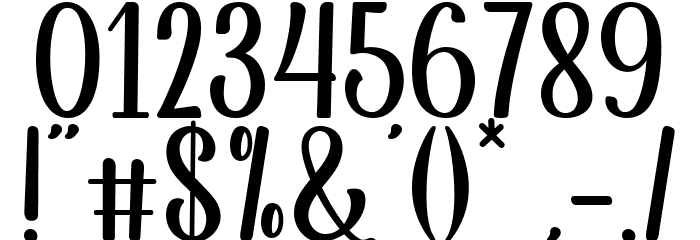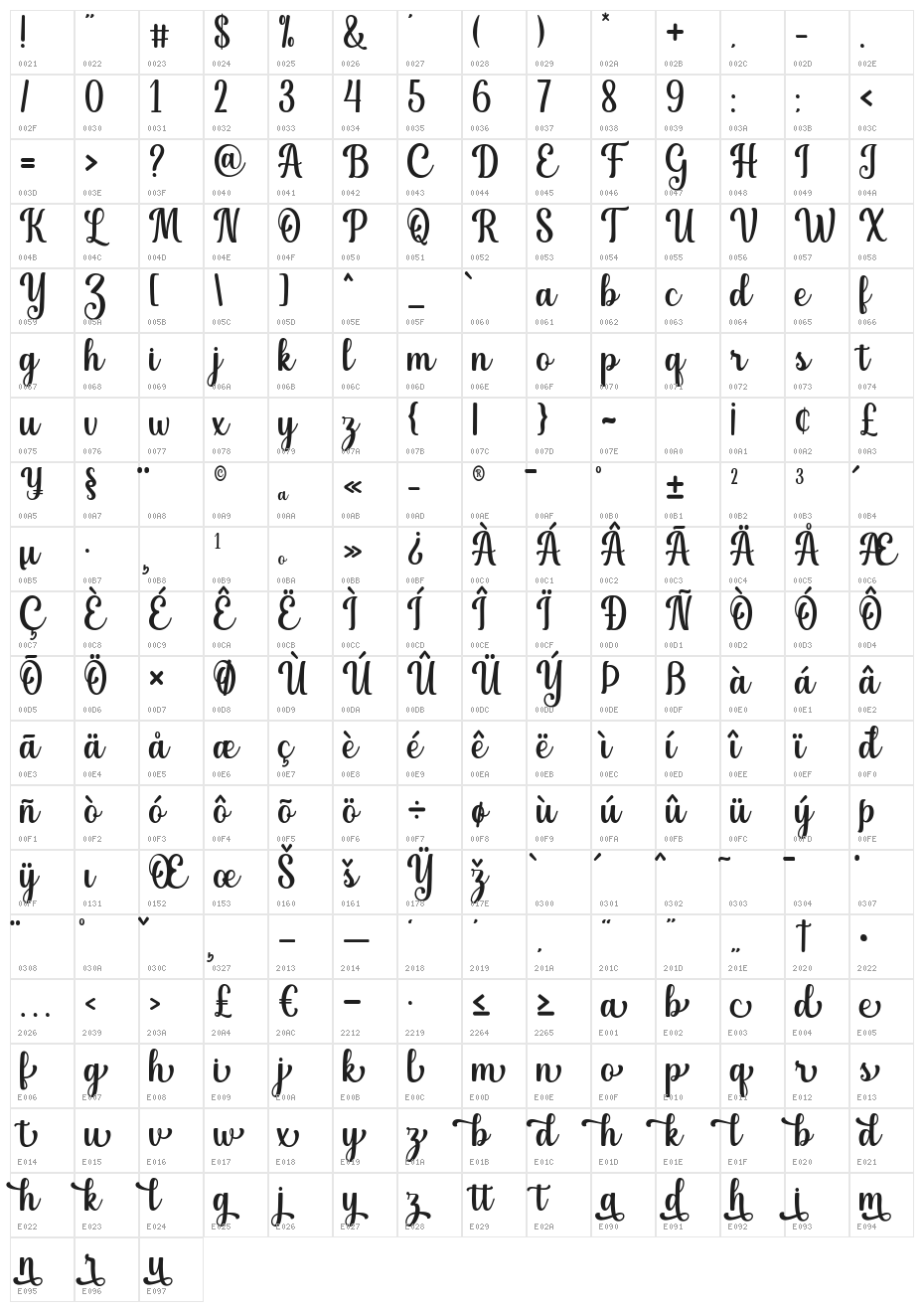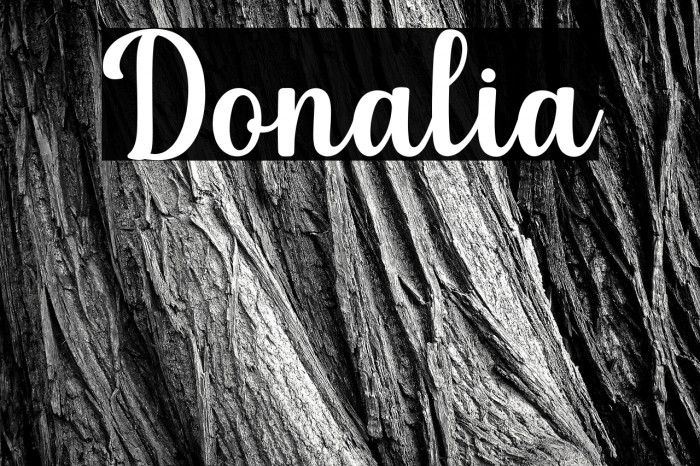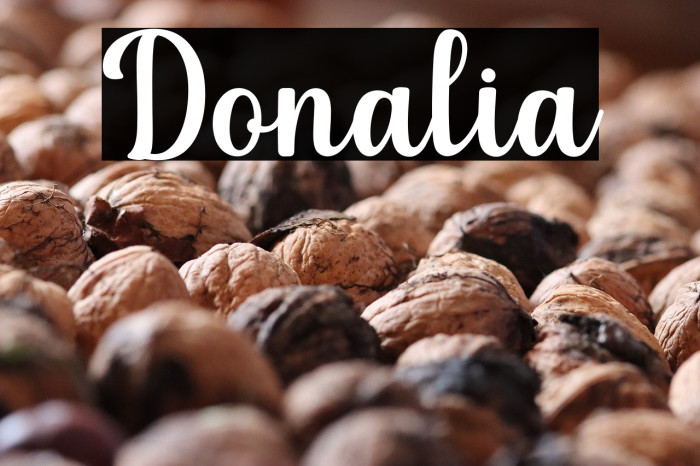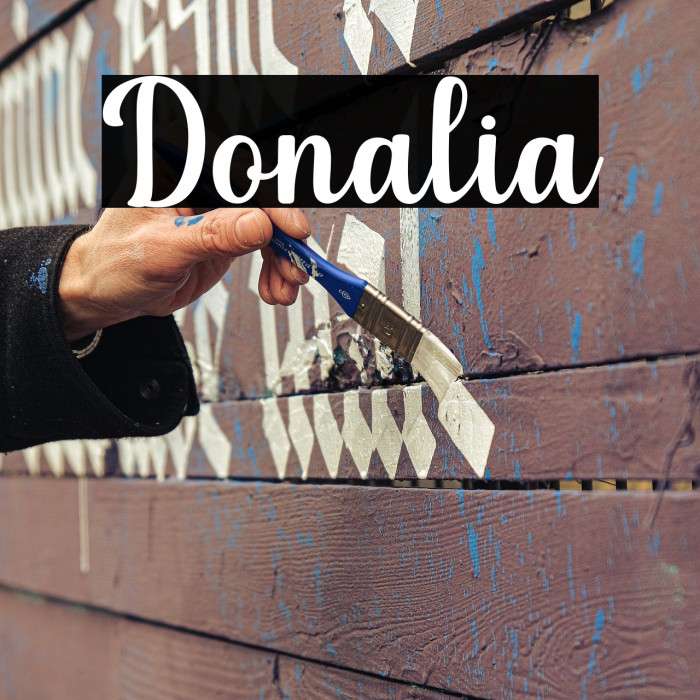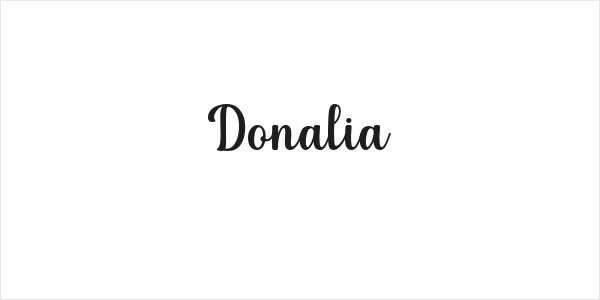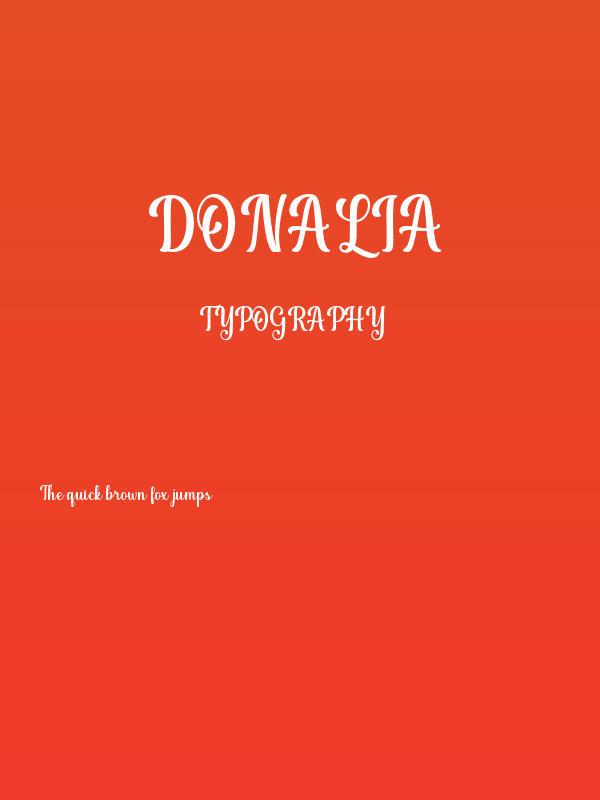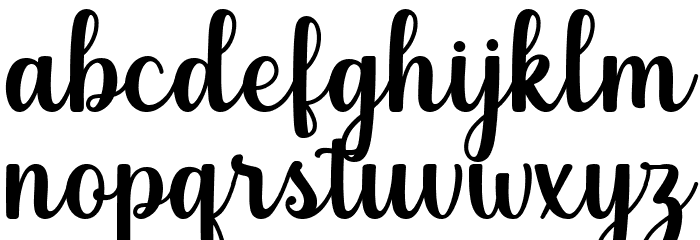
Donalia Font
Donalia Description
This font features a playful and elegant script style with a handwritten feel. The uppercase letters are characterized by smooth, flowing curves and a slight slant, giving them a dynamic appearance. The lowercase letters maintain a consistent style, with rounded forms and a friendly, approachable look. The numerals are bold and clear, ensuring readability while maintaining the font's overall aesthetic. Special characters are designed with the same attention to detail, blending seamlessly with the rest of the character set. This font's unique charm makes it suitable for a variety of creative projects.